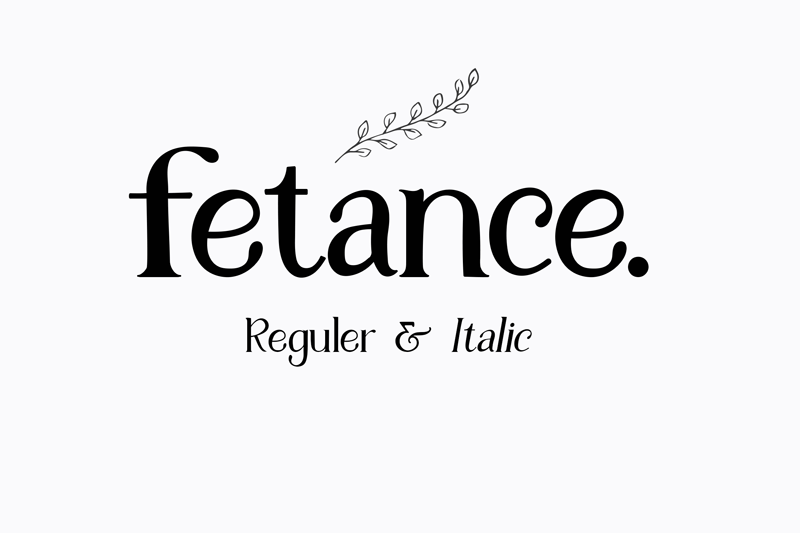
Fetance is a great type of font for creating beautiful and elegant headlines and logo designs. It works well with large sizes. Uppercase and Lowercase Features. It also works very well with large distances. What's in the package: Regular and italic fonts in OTF format | Upper and lower case Language Support: English, Portuguese, Spanish and French. If you have questions, don't hesitate to contact me via private message. Starstudio910@gmai.com atau lisensi premium standar:$1 Pasar kreatif: https://thehungryjpeg.com/product/3534626-fetance-serif-font Salam Hormat or standard premium license: $ 1 |